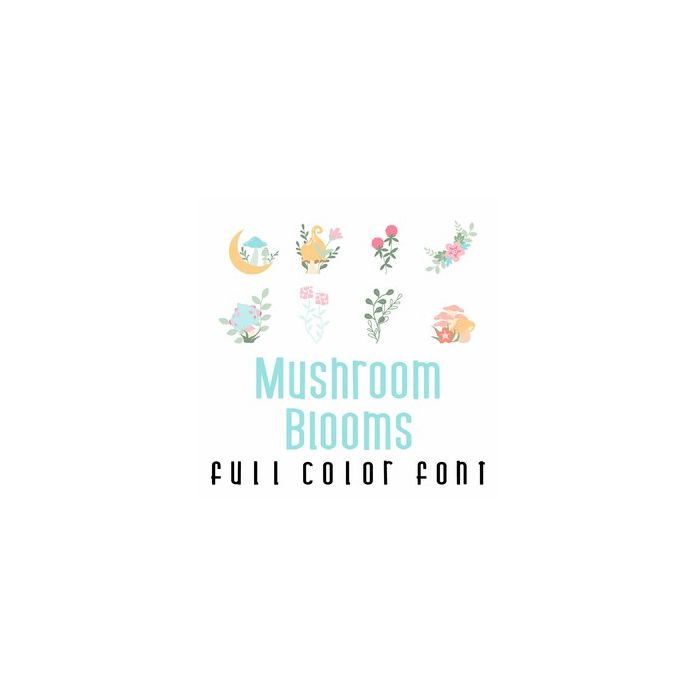
This adorable full color font features 26 beautiful florals and mushrooms. Perfect for Spring, crafts, gifts, decor, planner stickers, scrapbook pages and more!